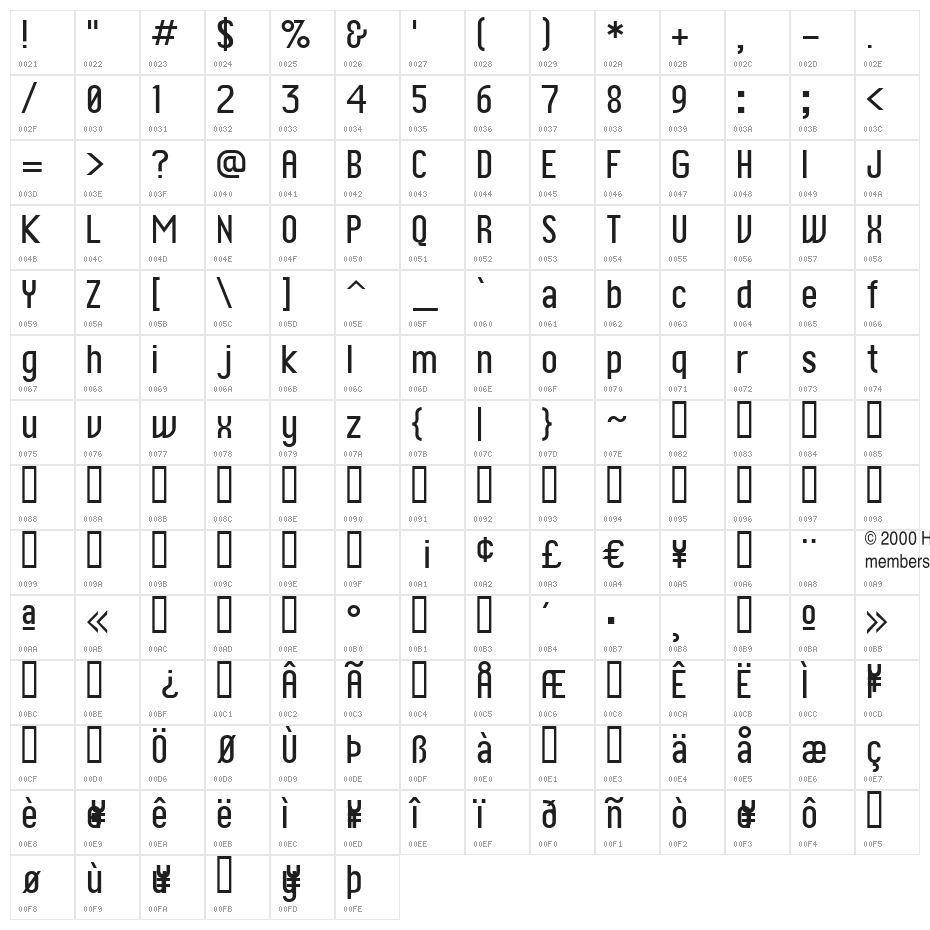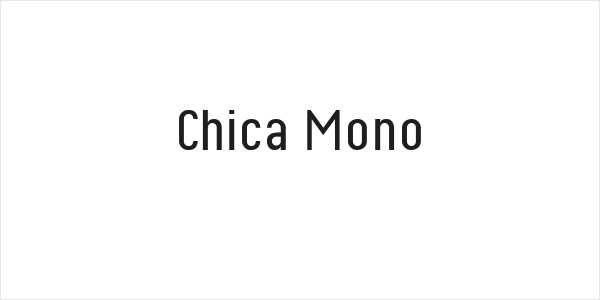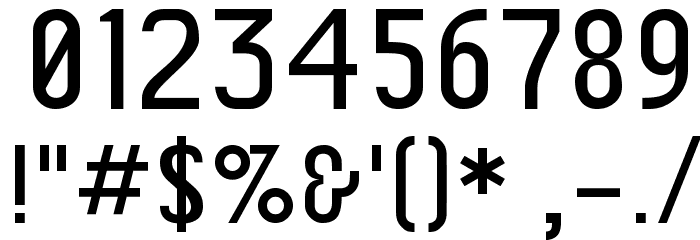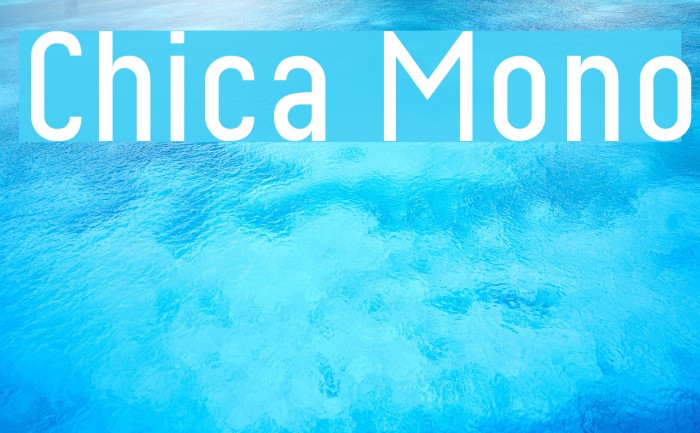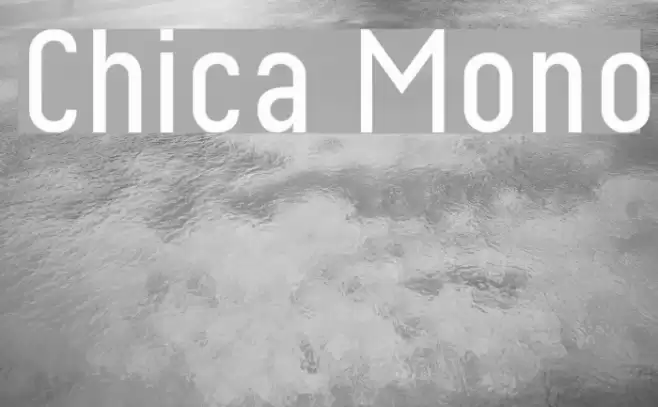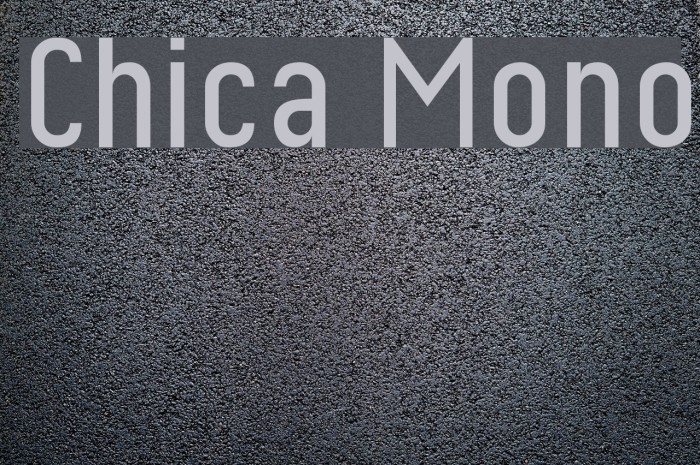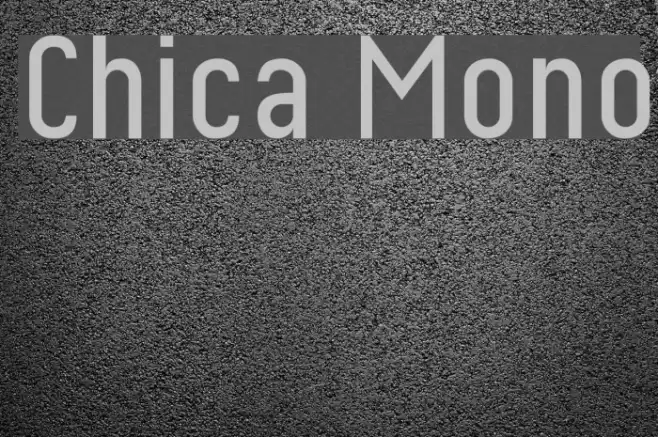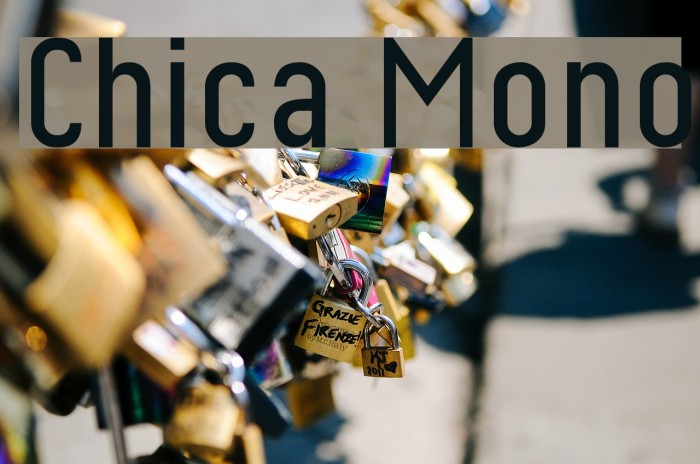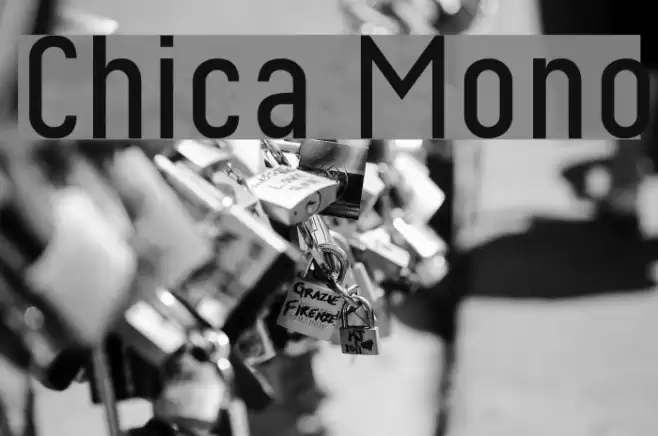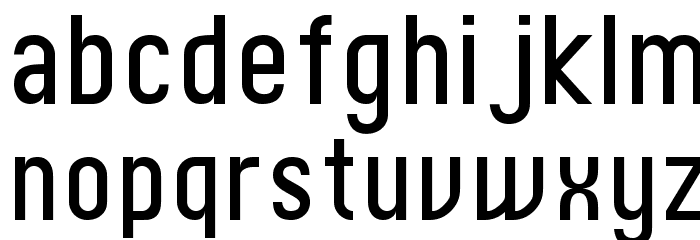
Chica Mono Font
Chica Mono Description
This font features a clean, modern design with a monospaced structure, ensuring each character occupies the same width. The uppercase and lowercase letters are well-proportioned, with a geometric influence evident in the uniformity of the strokes. The numerals are clear and distinct, making them easily readable. Special characters are designed with simplicity, maintaining the overall minimalistic aesthetic. The font's consistent line weight and lack of serifs contribute to its straightforward and uncluttered appearance, making it suitable for digital displays and coding environments.
| Use Case | Coding, Digital displays, Technical documentation |
| Proposed Projects | Ideal for coding, technical documentation, digital interfaces, and minimalist design projects. |